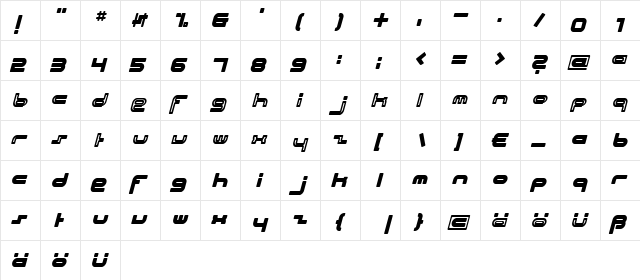
Beach House Italic
Design Context for Beach House Typeface
Beach House takes a measured approach to typography — its balanced proportions and neutral character make it a reliable workhorse for both digital and print work. The dynamic lean of this cut emphasises speed and emphasis in any layout.
Pro Tip: Use Beach House for emphasis, pull quotes, and subheadings where its slanted energy can add rhythm to the layout.